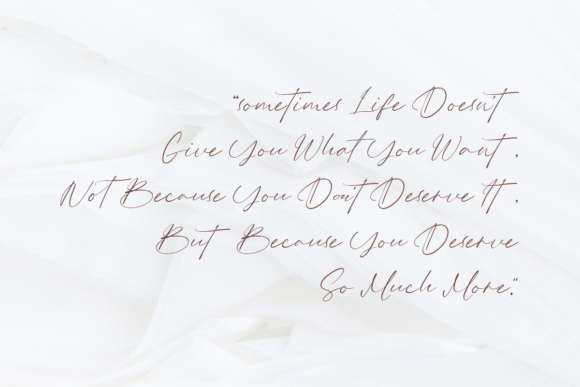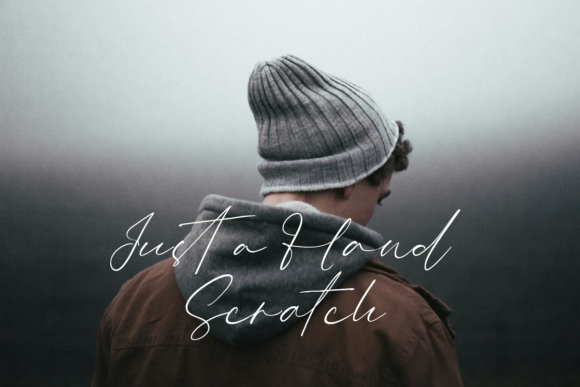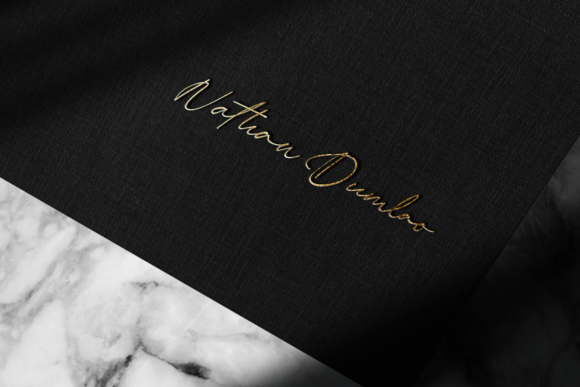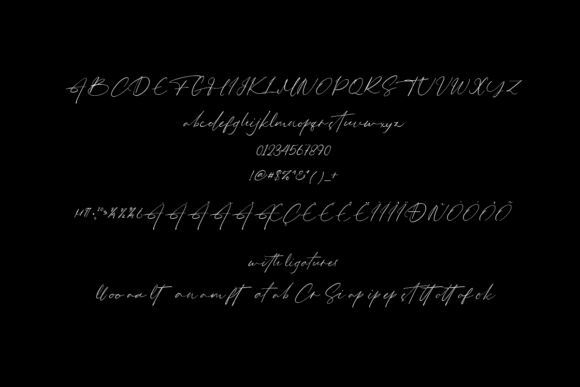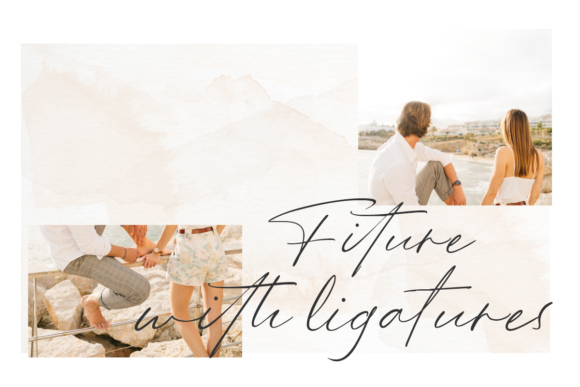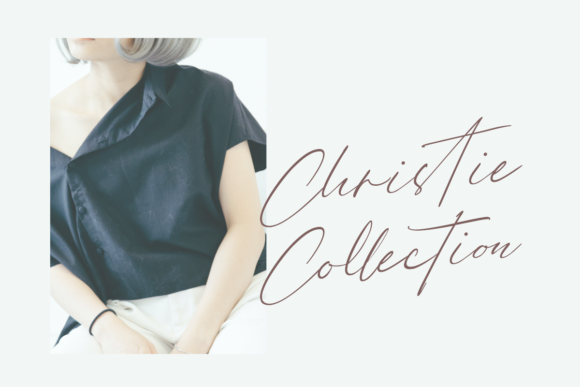
Introducing Brother Siam Font: The Perfect Choice for Your Next Design Project
Are you looking for a font that exudes romance and magnificence? Look no further than the Brother Siam Font. This stunning handwritten font is perfect for designers and crafters who want to add a touch of elegance to their projects. With its beautiful selection of ligatures and PUA encoding, Brother Siam is the ideal choice for your next design venture.
What Makes Brother Siam Font So Special?
Brother Siam Font is a romantic and magnificent handwritten font that boasts a beautiful selection of ligatures to choose from. This makes it perfect for a variety of design projects, from wedding invitations and romantic quotes to branding and packaging. The font’s elegant and flowing script is sure to capture the attention of your audience and leave a lasting impression.
PUA Encoding: What Does it Mean?
One of the standout features of Brother Siam Font is its PUA (Private Use Area) encoding. But what does this mean, exactly? PUA encoding allows designers to access all of the glyphs and characters in the font with ease. This means that you can easily access the font’s beautiful ligatures and use them to enhance your designs. With PUA encoding, you don’t have to worry about complicated font management or tedious character mapping.
Brother Siam Font is perfect for designers and crafters who want to add a touch of elegance to their projects. Whether you’re working on a wedding invitation, a branding project, or a craft tutorial, this font is sure to impress. The font’s romantic and magnificent feel makes it ideal for projects that require a touch of sophistication and glamour.
Use Brother Siam Font for:
- Wedding invitations and romantic quotes
- Branding and packaging
- Craft tutorials and DIY projects
Tips for Using Brother Siam Font
To get the most out of Brother Siam Font, here are a few tips to keep in mind:
- Use the font’s ligatures to add a touch of elegance to your designs
- Experiment with different font sizes and colors to create visual interest
- Pair the font with other elegant fonts to create a cohesive look
- Use the font’s PUA encoding to access all of the glyphs and characters with ease
In conclusion, Brother Siam Font is a romantic and magnificent handwritten font that is perfect for designers and crafters who want to add a touch of elegance to their projects. With its beautiful selection of ligatures and PUA encoding, this font is sure to impress. Whether you’re working on a wedding invitation, a branding project, or a craft tutorial, Brother Siam Font is the ideal choice. So why wait? Download Brother Siam Font today and start creating stunning designs that will leave a lasting impression.
- Romantic and magnificent handwritten font
- Beautiful selection of ligatures to choose from
- PUA encoded for easy access to glyphs and characters
- Perfect for wedding invitations, branding, and craft projects
- Elegant and flowing script